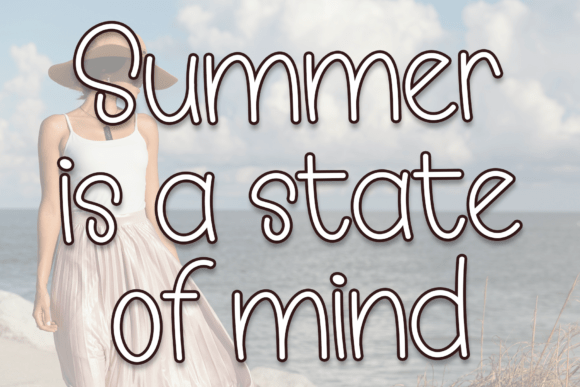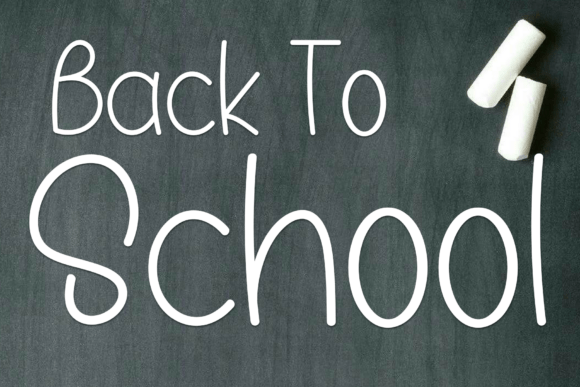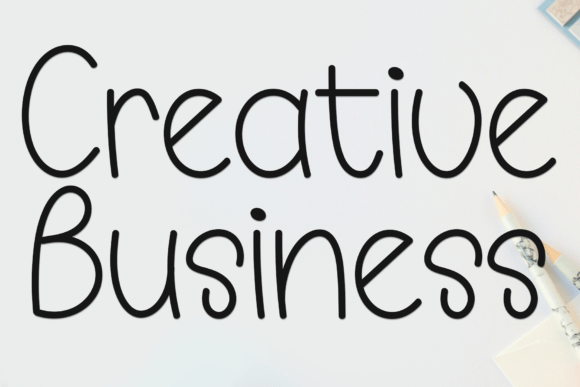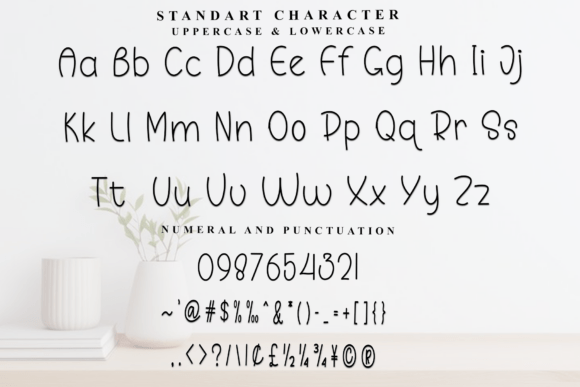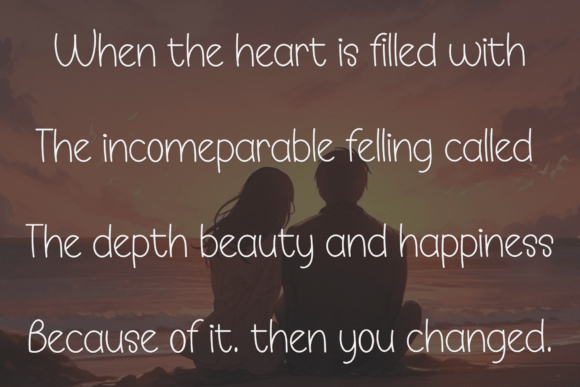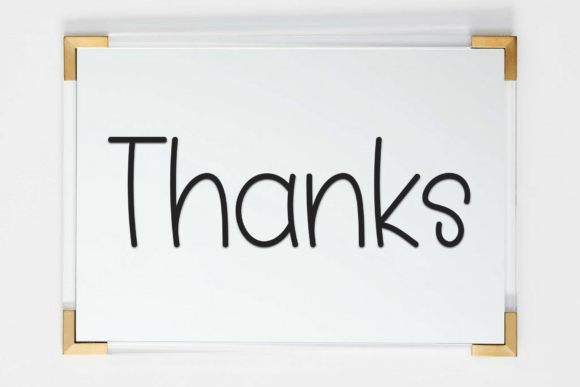
The Quest for the Perfect Font: Discovering Cute Daddy
I still remember the frustration of working on a design project, hours spent searching for that one font that would bring everything together. My client wanted something unique, something that would make their brand stand out, but not look too over-the-top. I scoured the internet, tried out dozens of fonts, but nothing seemed quite right. That was until I stumbled upon Cute Daddy – a beautiful, eye-catching font that instantly clicked.
First Impressions: A Review of Cute Daddy
Cute Daddy is more than just a font; it’s a design statement. Its soft, unique touch and distinctive strokes give it a special character that makes it both meaningful and versatile. Here are some of the things I love about Cute Daddy:
- ✨ Unique and Eye-Catching: Cute Daddy’s design stands out in a crowd, making it perfect for projects that need a bit of personality.
- ✅ Versatile: Whether you’re working on a professional design project or a fun craft, Cute Daddy fits right in.
- 🌈 Variety of Characters: The font comes with a range of characters, giving you plenty of options for customization.
While Cute Daddy is a fantastic font, it’s not without its quirks:
- 🤔 Learning Curve: If you’re new to using OpenType features or glyphs, there might be a bit of a learning curve. However, this also means you get to explore a world of creative possibilities.
- ⚠️ Limited Use in Some Contexts: While Cute Daddy is incredibly versatile, there might be certain formal or traditional projects where a more classic font is preferred.
The Story Behind Cute Daddy
Cute Daddy was designed with the intention of creating a font that was both unique and accessible. The designer aimed to craft a font that would bring a touch of softness and personality to digital and print projects alike. Inspired by the charm of handwritten fonts and the precision of digital design, Cute Daddy was born – a font that blends the best of both worlds.
| What makes Cute Daddy unique? | Cute Daddy’s uniqueness comes from its soft, distinctive strokes and a wide range of characters, making it versatile for various design projects. |
| Is Cute Daddy suitable for professional projects? | Absolutely! Cute Daddy’s unique touch and professional look make it suitable for a wide range of projects, from branding to packaging. |
| Does Cute Daddy support OpenType features? | Yes, Cute Daddy supports OpenType features, allowing you to access a variety of glyphs and stylistic alternates to enhance your designs. |
Cute Daddy is more than just a font – it’s a tool for creativity, a way to add personality and charm to your designs. Whether you’re a designer, crafter, or hobbyist, Cute Daddy is sure to become a favorite in your font collection.